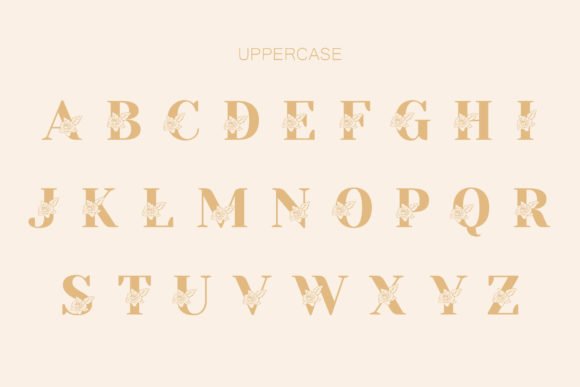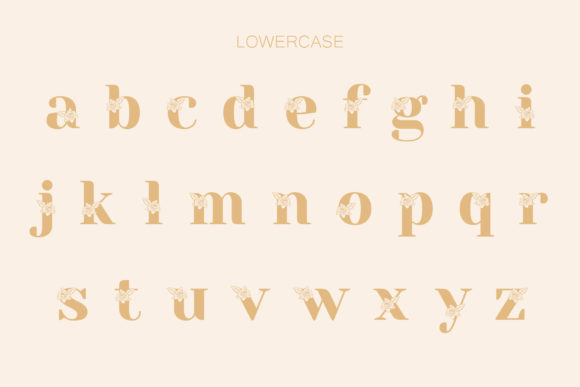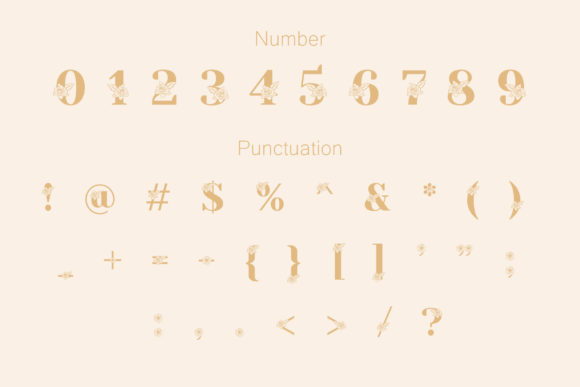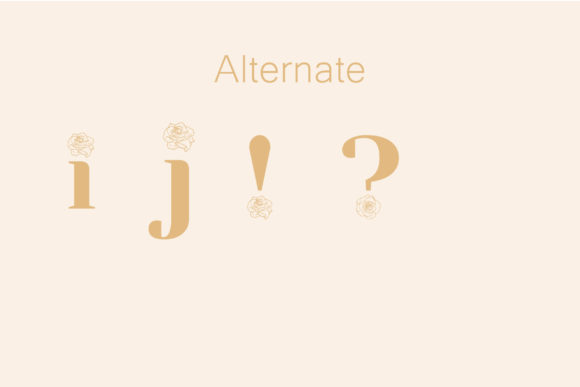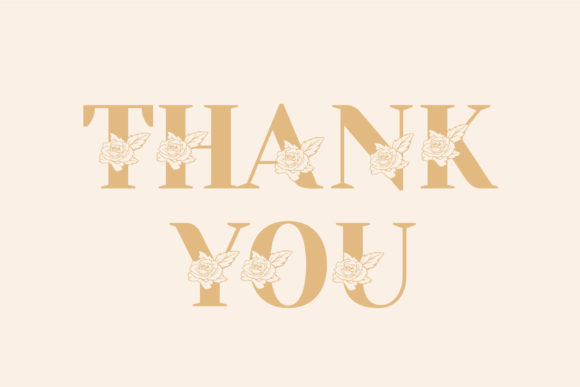
Introduction to Minimal Rose Font
As designers, we’ve all been there – staring at a blank canvas, desperately seeking the perfect font to bring our creative project to life. It’s a moment of inspiration, a spark of imagination, and a dash of creativity. And sometimes, all it takes is a single font to elevate our design from ordinary to extraordinary. Enter the Minimal Rose Font, a bold and elegant decorative font that’s sure to captivate your audience.
This stunning font features flowers as ornaments, adding a touch of whimsy and sophistication to any design. Whether you’re working on a blog post, logo, branding, or advertisement, the Minimal Rose Font is the perfect addition to take your project to the next level. With its high-quality design and transparent background, this font is a valuable resource for designers looking to add a unique touch to their creative endeavors.
Key Features of Minimal Rose Font
- High-quality design resource ideal for creative projects, including invitations, greeting cards, and social media graphics.
- Features a transparent background, making it easy to customize and layer with other design elements.
- Unique, elegant design with delicate rose petals and subtle details, adding a touch of sophistication to any creative project.
- High-resolution design, suitable for print and digital applications, including business cards, posters, and website graphics.
- Perfect for designers seeking a minimalist yet elegant design resource to elevate their creative projects.
Honest Review: Minimal Rose Font
As a designer, I’m always on the lookout for high-quality fonts that can elevate my creative projects. The Minimal Rose Font is one such find that I’m excited to share with you.
- ✨ Beautifully crafted design that exudes elegance and sophistication
- ✨ High-quality font that’s perfect for romantic or whimsical themes
- ✨ Offers a transparent background, making it easy to use on any design
- ⚠️ Limited character set, which may not be suitable for long-form text
Overall, I’m impressed with the Minimal Rose Font. Its unique design and high-quality construction make it a great addition to any design resource. While it may have some limitations, I believe it’s a great choice for short-form text or creative projects where a touch of elegance is needed.
How to Use Minimal Rose Font
The Minimal Rose Font is a high-quality design resource ideal for creative projects. This font features a beautiful, delicate design with a transparent background, making it perfect for adding a touch of elegance to your designs.
To get the most out of the Minimal Rose Font, use it in combination with other design elements, such as images, shapes, or other fonts. You can also experiment with different font sizes, colors, and styles to create a unique look.
The Minimal Rose Font is ideal for various design projects, including wedding invitations, baby showers, birthday parties, and other special events. It’s also perfect for creating custom graphics, such as quotes, titles, or headings, for social media, websites, or blogs.